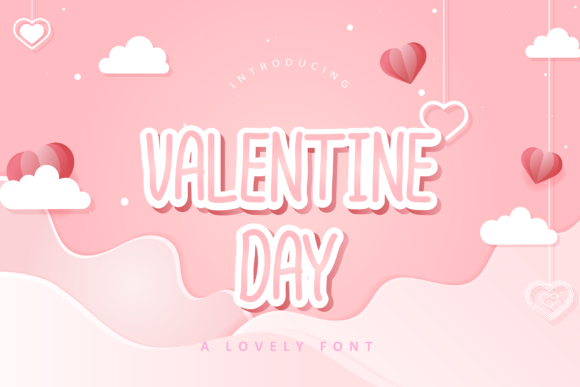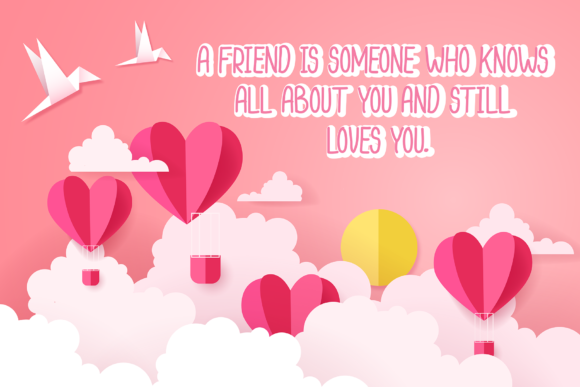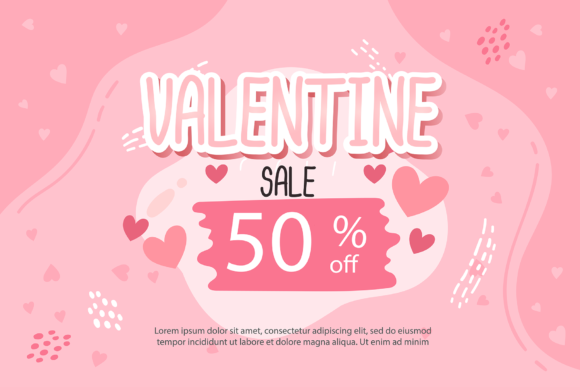
About Valentine Day Font
“Valentine Day” sounds like a lovely handwritten font with a versatile appeal, perfect for a wide range of crafty ideas. With its charming and handwritten style, this font is a great choice for various applications, from letterheads and titles to stationery and beyond.
By using “Valentine Day” in your designs, you can achieve a sense of warmth and intimacy. Its handwritten appearance adds a personal touch, making your creations feel more heartfelt and special.
This font’s versatility shines through, making it suitable for different crafty projects. Whether you’re working on letterheads, invitations, greeting cards, or any other creative endeavor, “Valentine Day” can effortlessly enhance the overall aesthetics and create a captivating atmosphere.
With “Valentine Day,” you have the creative freedom to explore different font sizes, colors, and placements. Its lovely and handwritten nature makes it a perfect choice for various text elements that require a touch of charm and personality.
Incorporate “Valentine Day” into your designs, and you’ll see how it adds a touch of romance and elegance, turning your crafty ideas into visually striking and captivating creations.
While embracing the charm of “Valentine Day,” remember to maintain readability and legibility. Proper spacing and alignment between letters ensure that the text remains clear and easy to read, preserving the font’s overall appeal and versatility.
In conclusion, “Valentine Day” is a lovely handwritten font with versatile appeal, suitable for a wide range of crafty ideas. Embrace its charming and intimate style, and let it be the font that adds a touch of warmth and beauty to your designs. With “Valentine Day,” your crafty projects will exude romance and elegance, capturing the hearts of your audience and leaving a lasting impression.